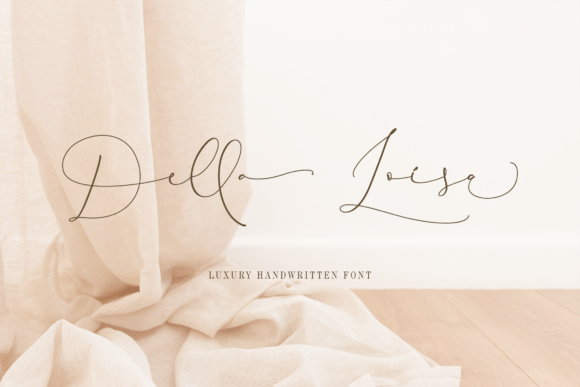
Della Loisa Font: The Epitome of Elegance and Sophistication
Della Loisa font is a stunning, thin-lettered, and graceful script font that has captured the hearts of designers and typography enthusiasts alike. Its ravishing style is sure to leave a lasting impression, making it an ideal choice for creating breathtaking wedding invitations, beautiful stationery art, eye-catching social media posts, and much more.
Key Features of Della Loisa Font
- Thin-Lettered: Della Loisa font boasts a delicate and slender design, perfect for adding a touch of elegance to any project.
- Graceful Script: The font’s script style exudes sophistication and refinement, making it suitable for high-end branding, wedding designs, and more.
- Versatile: Della Loisa font can be used for a wide range of applications, from digital media to print materials.
Creative Ways to Use Della Loisa Font
Della Loisa font is an incredibly versatile typeface that can be used in various creative projects. Here are some inspiring ways to utilize this beautiful font:
- Wedding Invitations: Create stunning wedding invitations that set the tone for a luxurious and memorable celebration.
- Stationery Art: Add a touch of elegance to your stationery, journals, and planners with Della Loisa font.
- Social Media Posts: Make your social media posts stand out with the font’s eye-catching and sophisticated style.
- Branding and Packaging: Use Della Loisa font to create a cohesive and luxurious brand identity for your business.
Typography Tips for Using Della Loisa Font
To get the most out of Della Loisa font, consider the following typography tips:
- Pair with Contrasting Fonts: Combine Della Loisa font with bold or sans-serif fonts to create a striking contrast.
- Adjust Font Size: Experiment with different font sizes to create visual hierarchy and add emphasis to specific text elements.
- Play with Line Spacing: Adjust line spacing to create a sense of flow and harmony in your text.
Inspiration and Examples
To spark your creativity, here are some inspiring examples of Della Loisa font in action:
Della Loisa font is a breathtakingly beautiful script font that can elevate your designs to new heights. Its thin-lettered and graceful style makes it perfect for creating stunning wedding invitations, stationery art, social media posts, and more. With its versatility, typography flexibility, and inspiring examples, Della Loisa font is sure to become a favorite in your design arsenal.